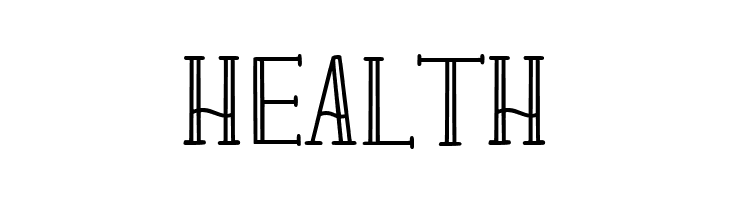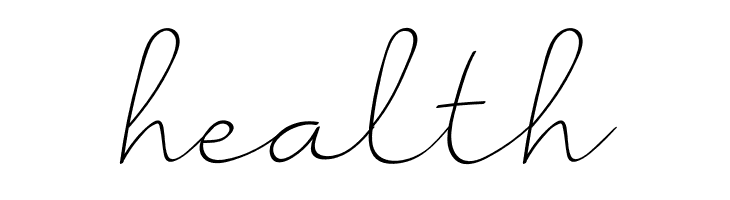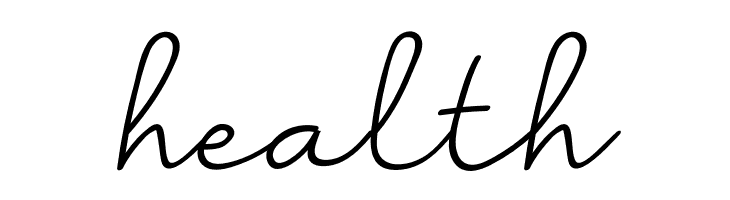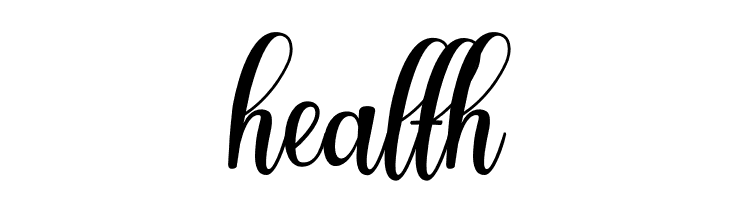
A decorative font with tall, slender characters and a geometric, vintage-modern style.
A modern, rounded font with a playful and approachable style.
A playful, casual handwritten font with irregular strokes and an organic flow.
A graceful, flowing script font with a handwritten cursive style.
A cursive, handwritten-style font with elegant, flowing strokes.
A playful, bold handwritten font with a casual and energetic style.
A lively and flowing script font with elegant, fluid strokes.
A classic and elegant script font with flowing, cursive letterforms.
A graceful script font with elegant, flowing lines and a handwritten style.
A lively, cursive font with a handwritten, elegant style.